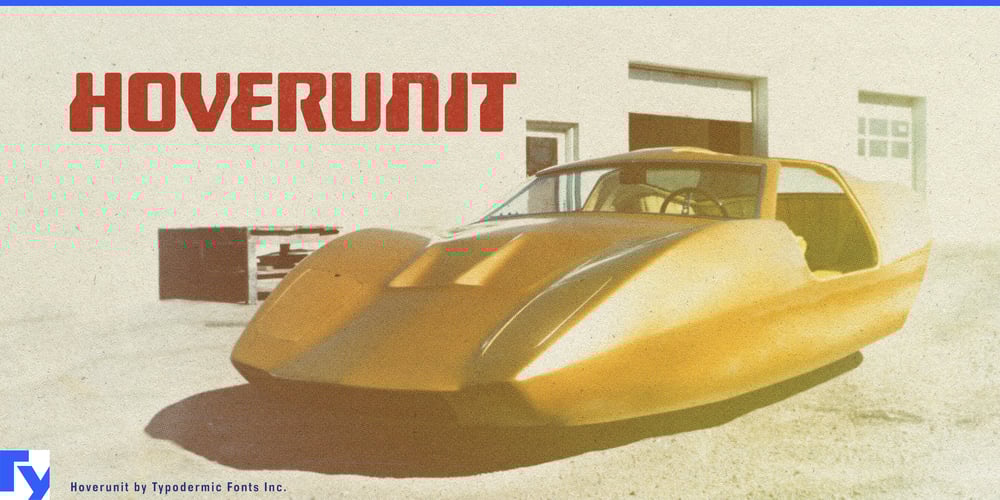
Hoverunit Font Family was designed by Ray Larabie and published by Typodermic. Hoverunit contains 1 styles and family package options. Attention, earthlings and extraterrestrial typographers alike! Prepare for liftoff with Hoverunit, the typeface that’s about to send your designs into hyperdrive. This isn’t just a font—it’s a wormhole to a dimension where the retro-future of yesterday collides with the cutting edge of tomorrow.Born from the atomic dreams of 1960s magnetic ink technology and genetically spliced with 21st-century design DNA, Hoverunit emerges as a typographic chimera that would make even the most jaded alien sit up and take notice. Its sharp angles slice through the visual noise like a laser through nebula gas, while its sleek lines streak across your designs faster than a UFO over Roswell. But don’t let its sci-fi pedigree fool you—Hoverunit is as versatile as a shape-shifting Martian. Need a headline that packs more punch than a photon torpedo? Hoverunit’s got you covered. Looking for body text that reads smoother than a well-oiled android? Hoverunit’s range of weights has an option for every occasion, from the whisper-light thin to the black hole-dense heavy.And just when you thought Hoverunit couldn’t be more otherworldly, it reveals its true cosmic nature. This typeface is a linguistic polyglot, as comfortable setting Icelandic sagas as it is crafting Vietnamese space operas. From the fjords of Norway to the jungles of Brazil, Hoverunit speaks the language of the future with a pan-European accent that would make a universal translator jealous. Choosing Hoverunit for your project isn’t just a design decision—it’s a declaration that you’re ready to boldly go where no typography has gone before. It’s for the visionaries, the dreamers, the designers who look at the night sky and see not just stars, but potential layouts.Don’t let your typography be bound by the laws of earthly design physics. Choose Hoverunit, and watch as your words defy gravity, expectations, and possibly several laws of thermodynamics.